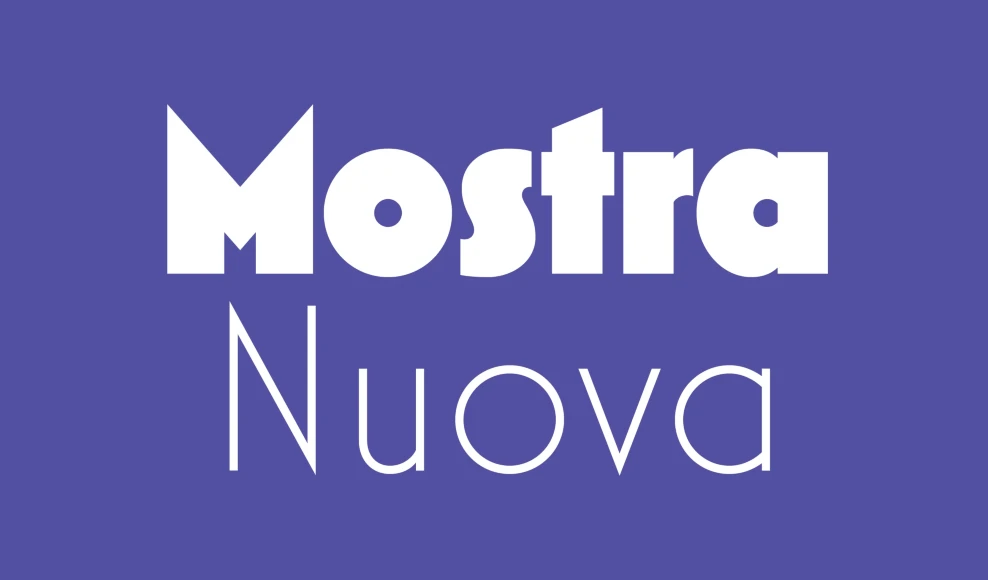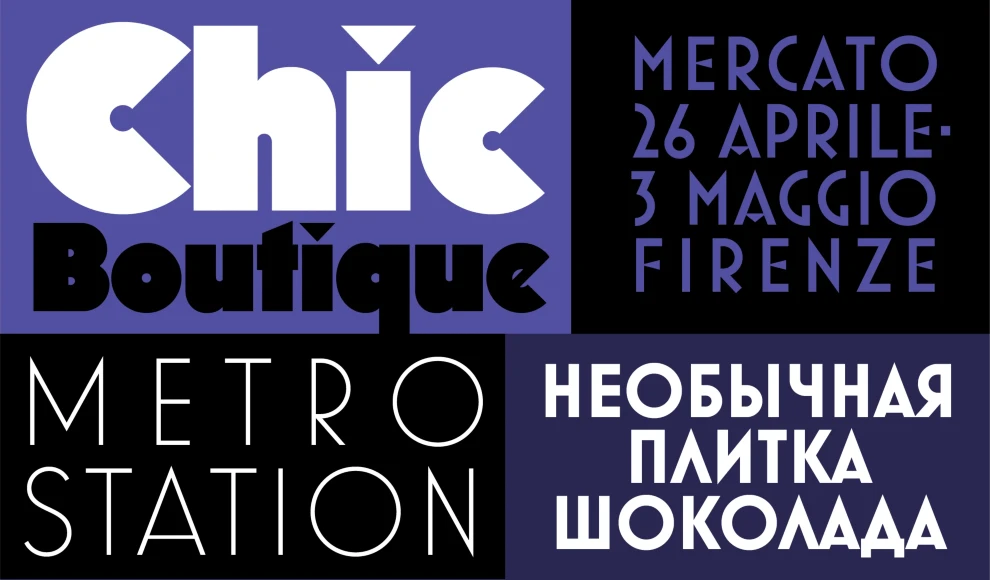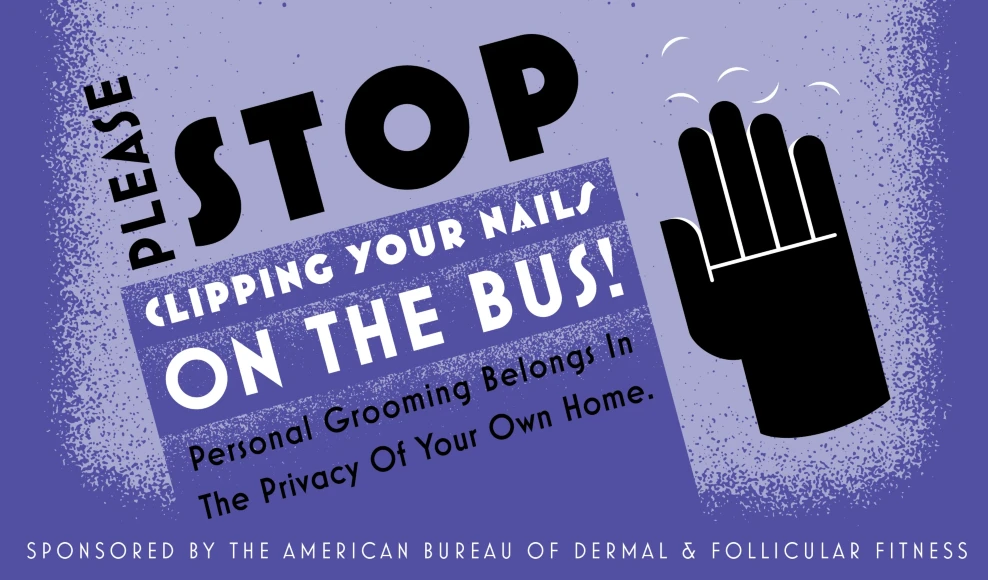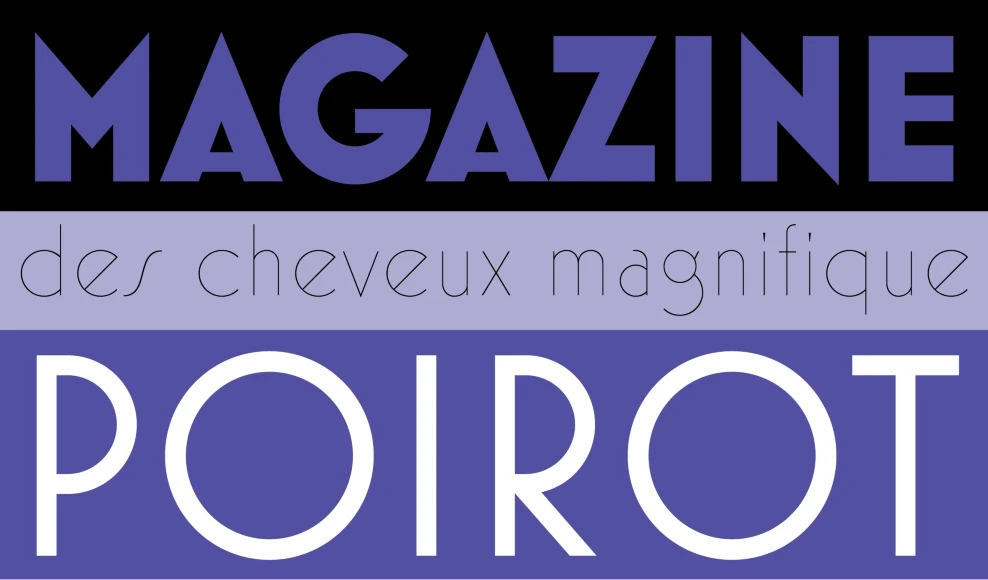
Mostra Nuova
By Mark Simonson
Mostra Nuova (2009) is based on a style of lettering seen on Italian Art Deco posters and advertising of the 1930s. Although it’s very geometric, I made subtle optical adjustments to keep it from looking too severely mechanical. I first released it in 2001 as Mostra, a caps-only design. Mostra Nuova has more weights, better language support, and lowercase letters. It features dozens of alternate characters providing endless stylistic possibilities within the basic design, from fairly plain to quite stylized.